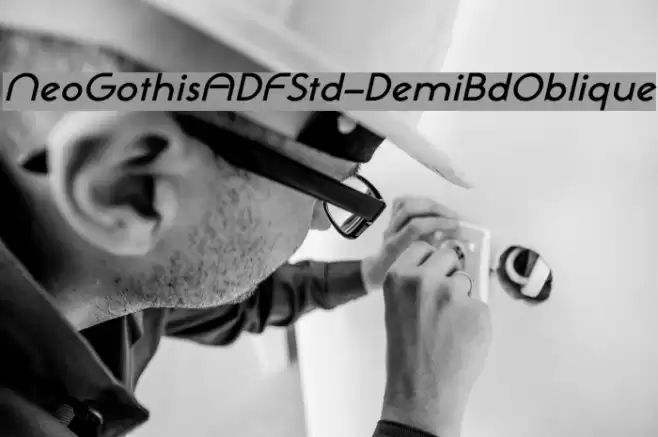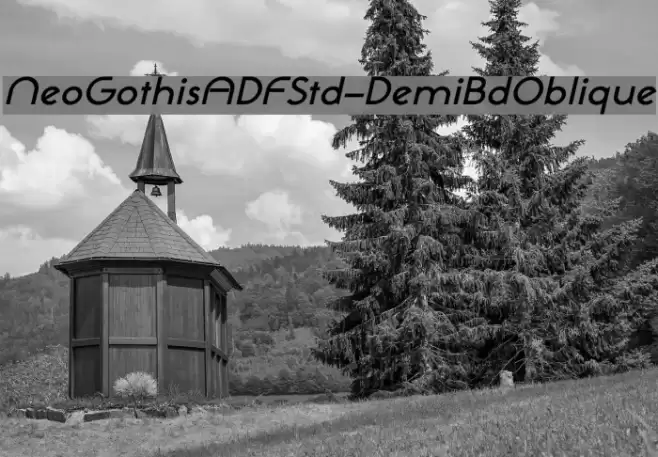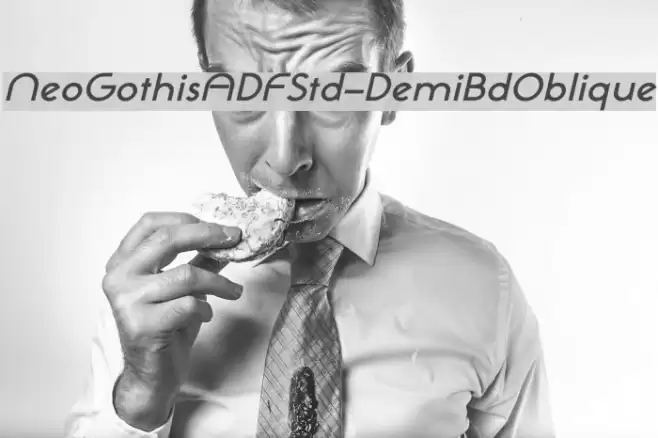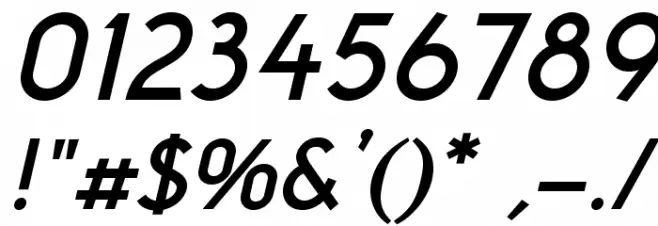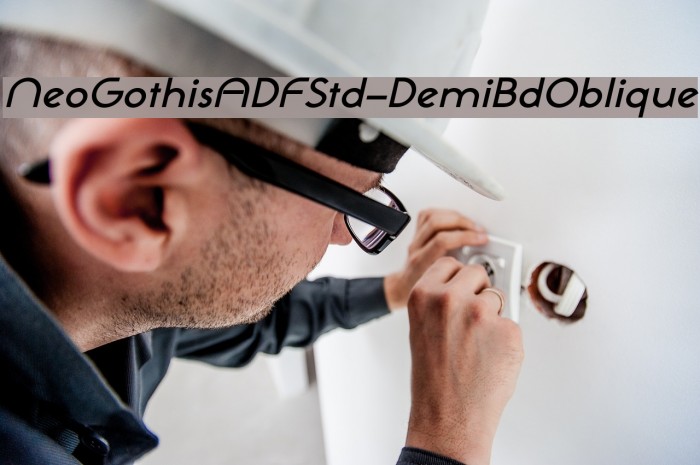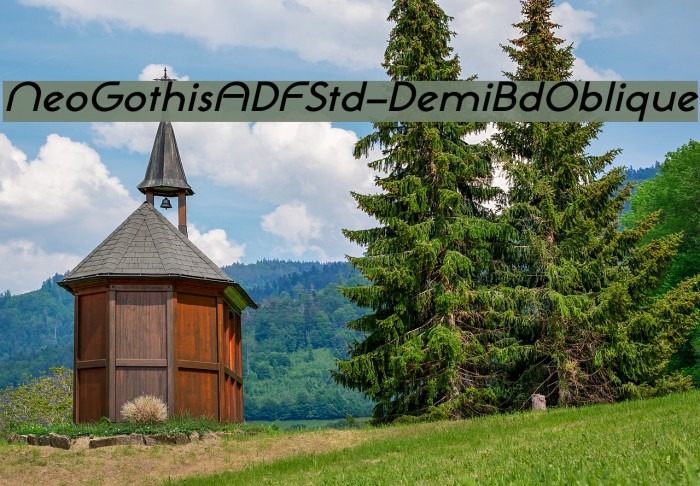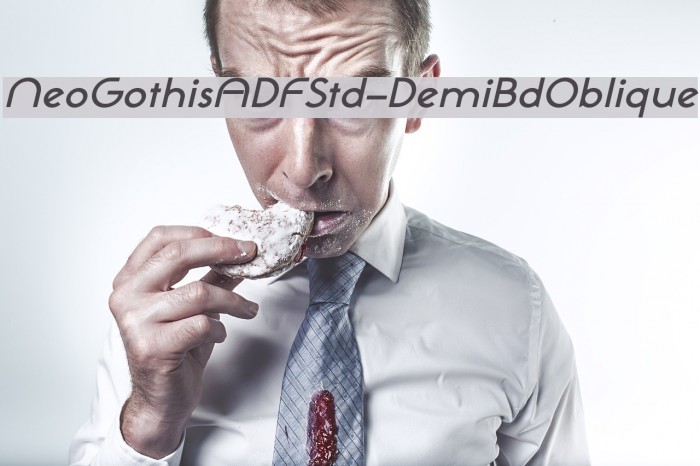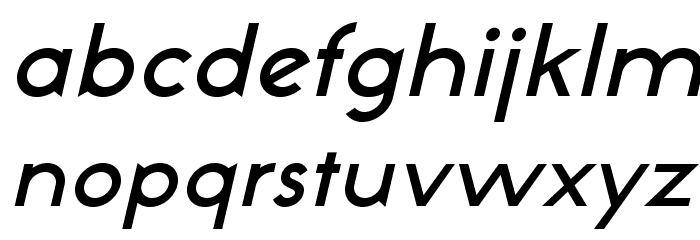
NeoGothisADFStd-DemiBdOblique Font
NeoGothisADFStd-DemiBdOblique Description
This font features a modern and sleek design with a slight oblique slant, giving it a dynamic and forward-moving appearance. The characters are bold and well-defined, with a consistent stroke width that maintains readability across various sizes. The uppercase letters have a geometric quality, while the lowercase letters are more rounded, providing a nice contrast. The numerals are clear and distinct, making them suitable for both display and text purposes. Special characters are well-integrated, maintaining the overall style and coherence of the font.
A modern, bold, and slightly oblique font with geometric uppercase and rounded lowercase letters from Uncategorized fonts.
- Proposed Projects: Ideal for branding, advertising, headlines, and modern web design projects.